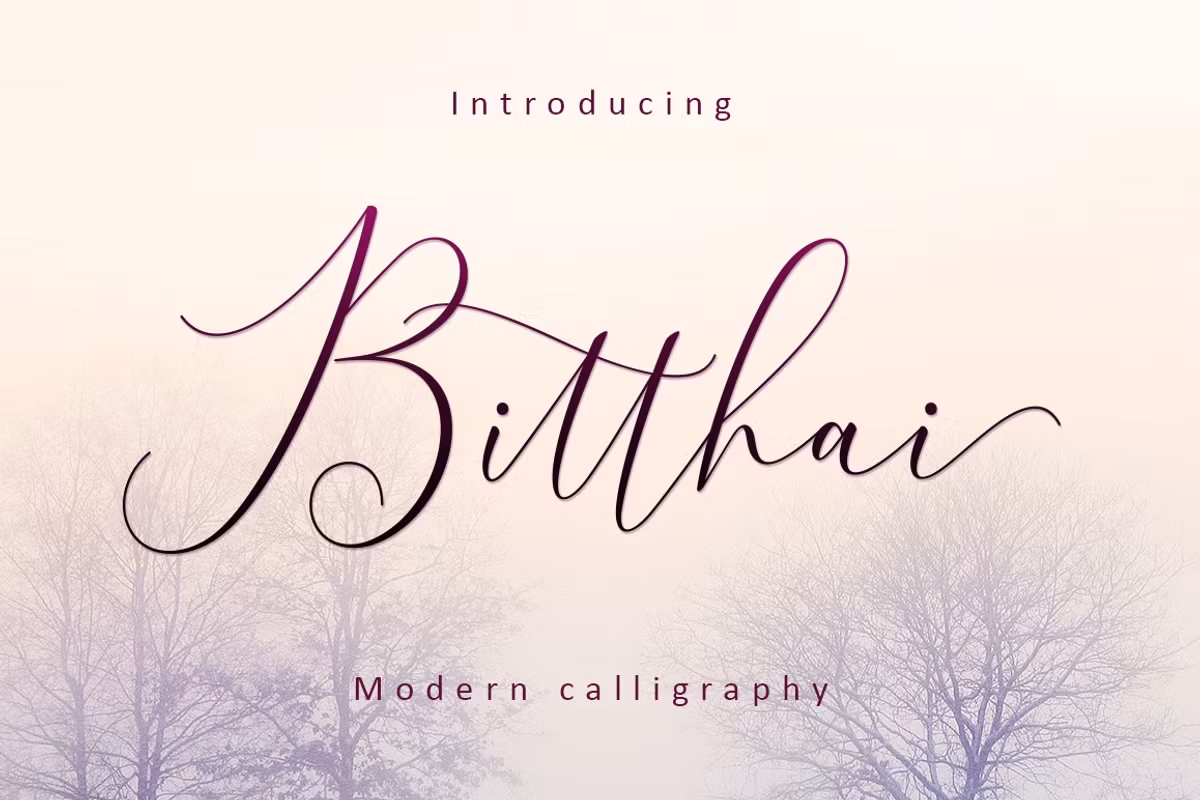
Bitthai Script Free Download
Bitthai Script Font Free Download is a graceful and flowing handwritten typeface designed to bring elegance and charm to your creative work. Please note, you are required to purchase this font for commercial use. It is available for free download for testing and personal projects only.
Featuring smooth curves, stylish swashes, and a natural pen-like rhythm, Bitthai is perfect for wedding invitations, branding, greeting cards, logos, and social media graphics. It offers a delicate balance of sophistication and personality, making your typography feel warm and heartfelt.